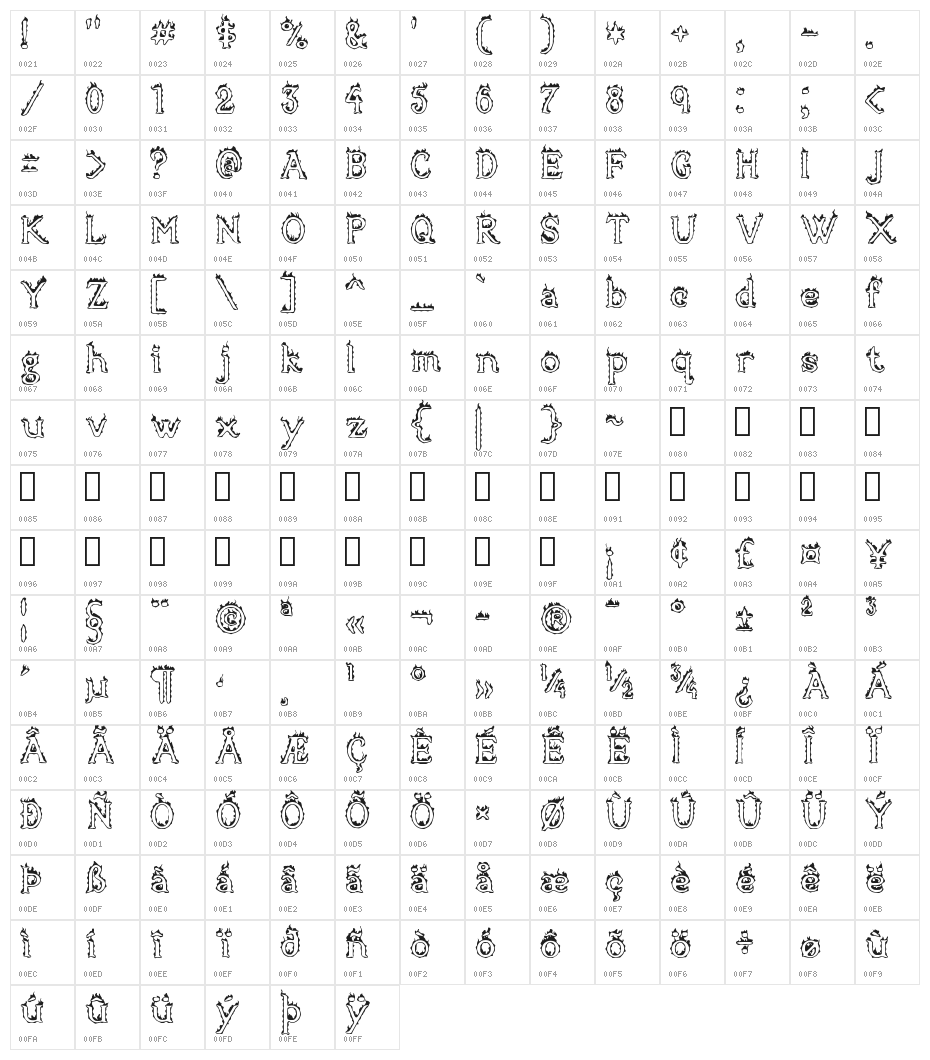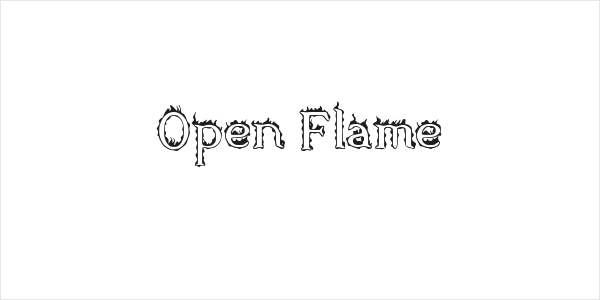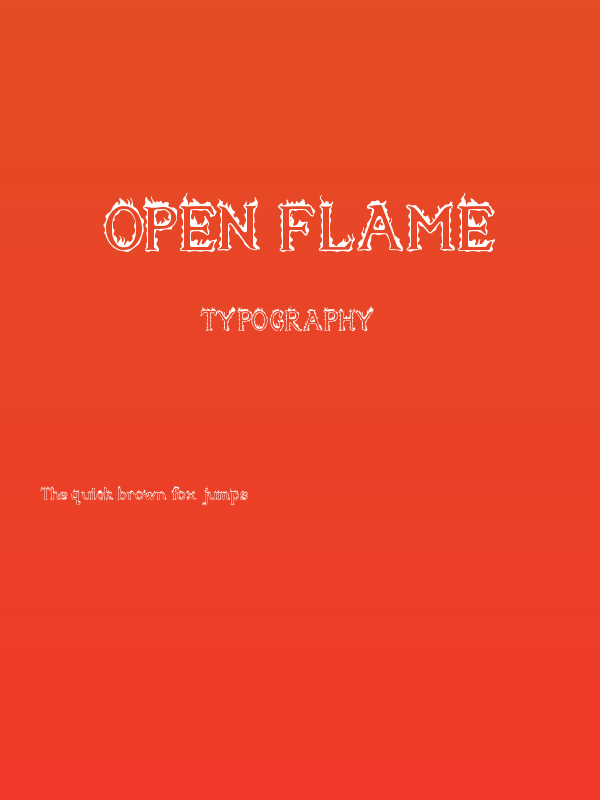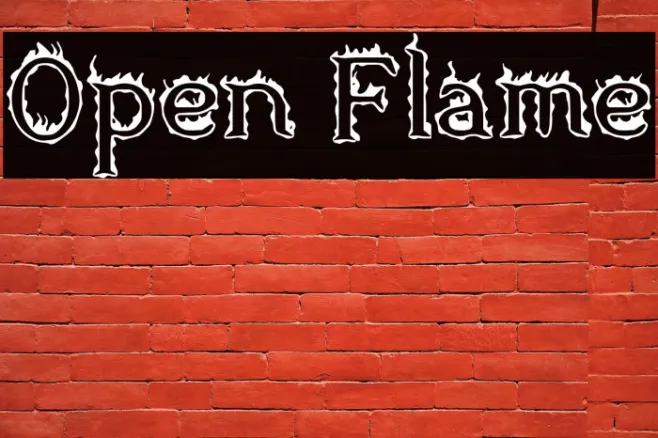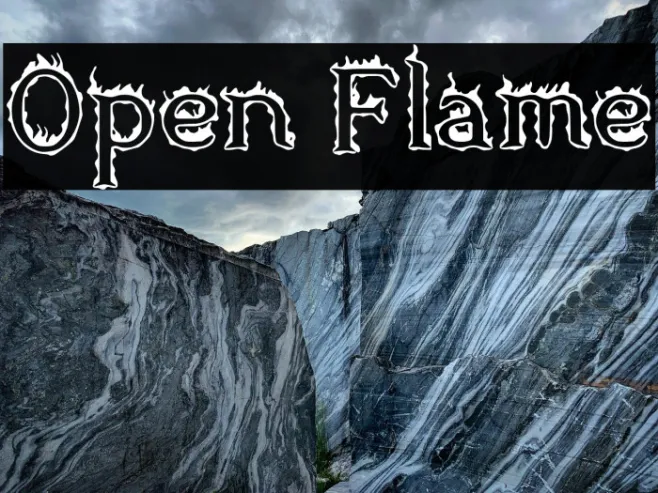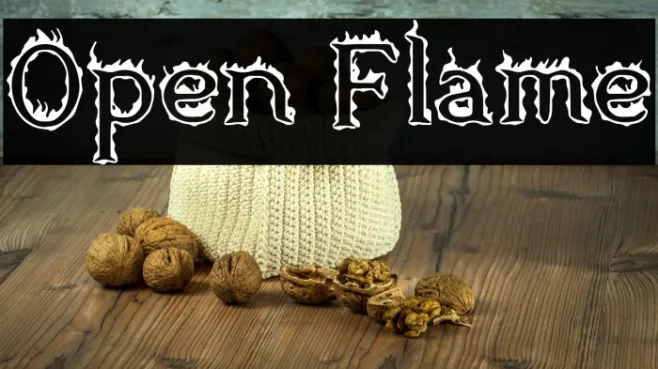
Open Flame Font
Open Flame Description
This font features a bold and fiery design, with each character appearing as if engulfed in flames. The letters have a rugged, jagged outline that mimics the unpredictable nature of fire, giving it a dynamic and energetic appearance. The uppercase and lowercase letters maintain a consistent style, with the flames adding a sense of movement and intensity. The numbers and special characters follow the same theme, ensuring a cohesive look across all elements. This font is perfect for projects that require a dramatic and eye-catching aesthetic.
| Proposed Projects | Ideal for event posters, music album covers, Halloween themes, or any design needing a fiery impact. |